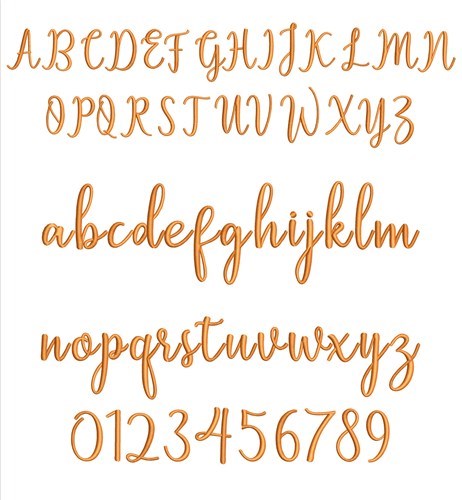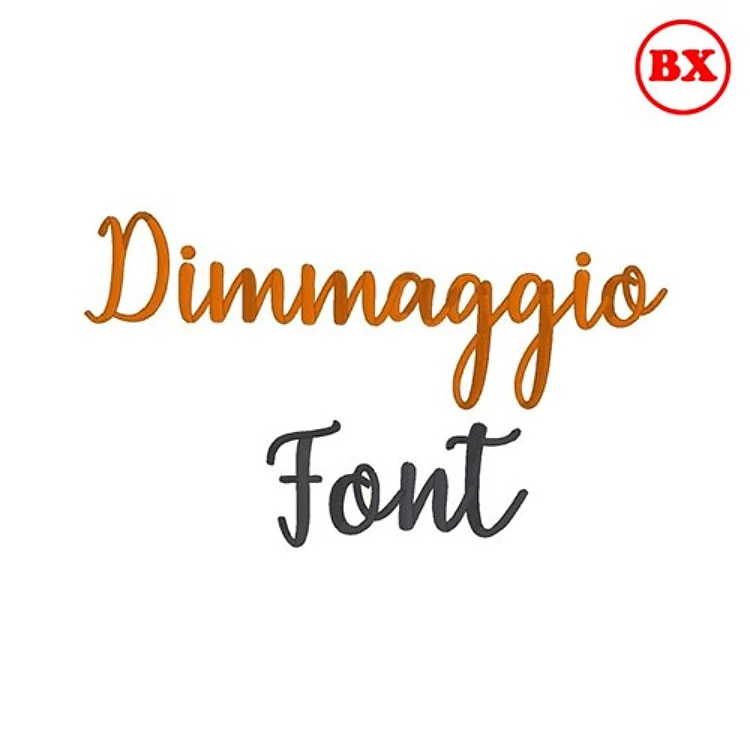
Easy Embroidery is happy to present Dimmagio Embrilliance Font - Flowing Script Lettering - BX font machine embroidery font which has Flowing script machine embroidery font suited for monogramming on items like table runners and cushions. Shown in vibrant orange and dark gray, available in BX font and Embrilliance formats. included. If you would like to view more embroidery fonts and alphabets please search our embroidery fonts page.
Dimmagio Embrilliance Font - Flowing Script Lettering - BX font